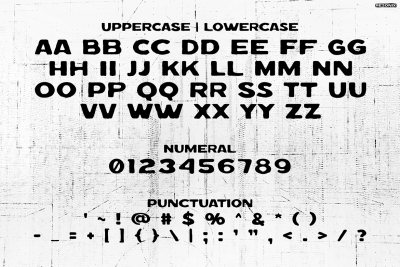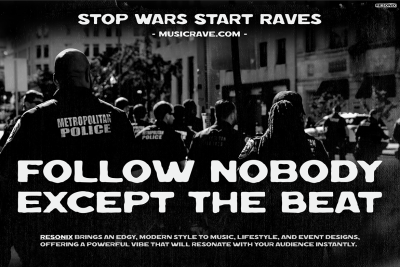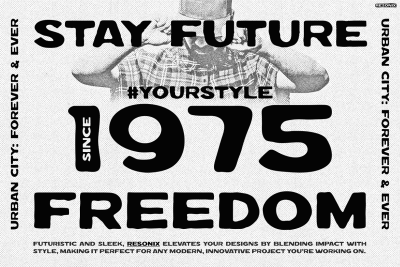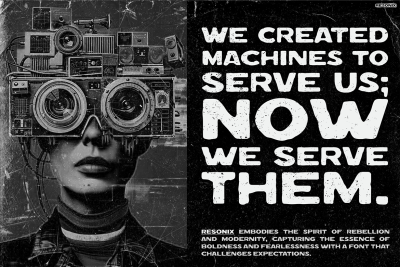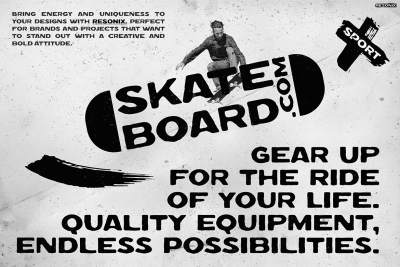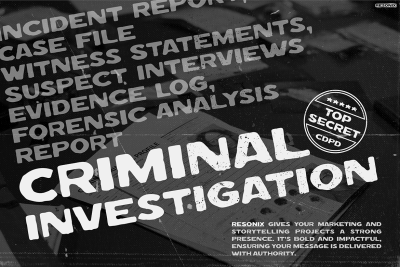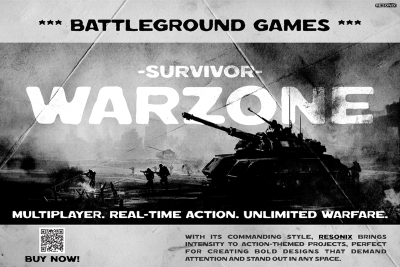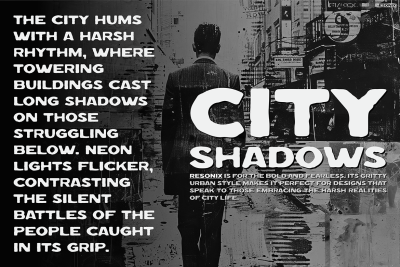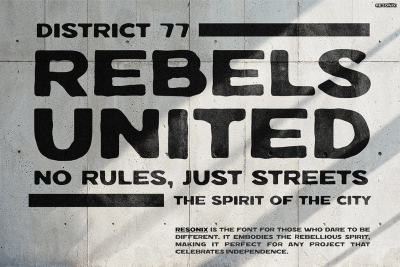
Music Font Resonix is a bold, energetic typeface that truly captures rhythm and sound. Its unique, slightly distorted letterforms and strong presence reflect the raw energy of live music, underground scenes, and modern audio aesthetics. Moreover, inspired by electronic beats and rock typography, Resonix is more than a typefaceโitโs an experience.
This font adds an edgy, impactful look to any project. In addition, its thick, rugged strokes and organic imperfections help designs stand out with a rebellious feel. Whether in digital or print media, Resonix consistently delivers a powerful impact. Every letter resonates with the intensity of music, ensuring maximum engagement.
Furthermore, the font balances readability with a distinctive character, making it memorable. It works well for display purposes like album covers, event posters, and promotional materials. Additionally, raw textures and well-balanced spacing enhance its versatility. As a result, Resonix fits many music-related branding and creative projects effortlessly.
Who Should Use Music Font Resonix?
- Music Artists & Bands: Perfect for album covers, band logos, and promotional materials, giving artists a bold identity that stands out.
- Concert & Festival Organizers: A great choice for festival posters, concert flyers, and merchandise, ensuring high visibility and a strong impact.
- DJs & Electronic Music Producers: Ideal for promotional banners, social media graphics, and digital artwork that effectively reflect energetic beats.
- Streetwear & Fashion Brands: Enhances edgy, music-inspired apparel, logo designs, and merchandise with a rebeledglious aesthetic, making brands feel more dynamic.
- Graphic Designers: A must-have for projects related to music, nightlife, and alternative culture, providing a fresh and distinctive style.
- Music Bloggers & Magazines: Excellent for editorial headings, website banners, and social media posts that require a bold, eye-catching font.
Ultimately, Music Font Resonix is more than a typefaceโitโs a statement. Its bold, rhythmic, and raw aesthetic ensures designs carry the spirit of music and creativity. Therefore, if you need a font with energy, intensity, and individuality, Resonix is the perfect choice.